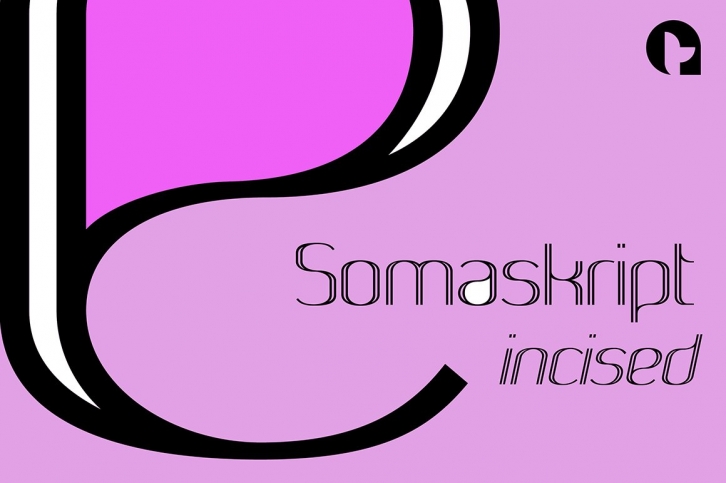
When designing the Somatype alphabet originally, I always envisaged maximizing its diversity by creating an incised version. This rendition not only emphasizes the implied script qualities within the name but brings out the softer, feminine side of the typeface. The evolutionary process creates a different looking font altogether and in turn the slanted version emphasizes the elegant quality even more so.